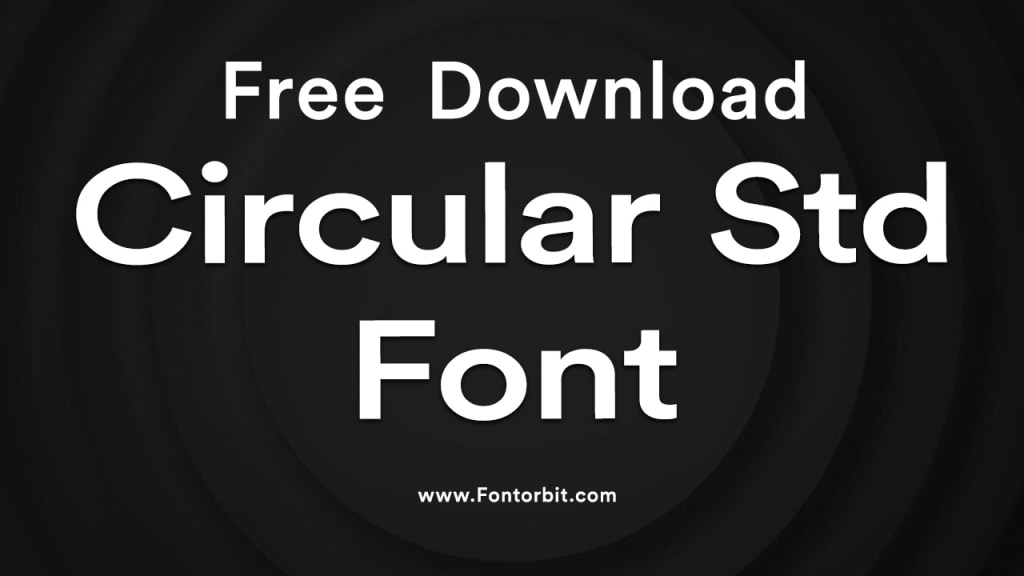
Circular Std Font: A Modern Typeface for Every Design Need
Circular Std
The Circular Std font is a geometric sans-serif typeface that has gained immense popularity in the design world since its release.
Designed by Laurenz Brunner and first published by Lineto in 2013, Circular Std is celebrated for its clean, versatile, and modern aesthetic. Its balanced proportions and subtle details make it a favorite among graphic designers, UI/UX specialists, and branding experts.
Features of Circular Std Font
Geometric Design: Circular Std is based on geometric principles, giving it a uniform and consistent appearance. Its rounded letterforms add a friendly and approachable feel to any design.
Versatile Usage: This font is widely used across various platforms, including websites, mobile applications, corporate branding, and editorial layouts.
Multiple Weights: Circular Std offers multiple weights, ranging from Thin to Black. This flexibility allows designers to use it for both headings and body text.
Language Support: The font supports a wide range of languages, making it ideal for global projects.
Legibility: The clean and simple letterforms ensure excellent legibility, even at smaller sizes, making it suitable for both print and digital mediums.
Why Circular Std is Popular
Circular Std has become a go-to choice for modern brands. Its geometric yet humanistic design bridges the gap between professionalism and warmth. This unique balance is particularly appealing for tech startups, lifestyle brands, and modern editorial designs. Companies like Airbnb have adopted this typeface to convey a sense of trust, simplicity, and modernity.
How to Use Circular Std Font Effectively
For Branding: Use bold weights for logos and headlines to create a strong visual identity.
In Digital Design: Pair it with contrasting fonts to enhance readability and visual interest.
For Editorial Layouts: Use lighter weights for body text and medium weights for subheadings to achieve a harmonious flow.
In Marketing Materials: Its friendly yet professional aesthetic makes it suitable for brochures, posters, and presentations.
Conclusion
Circular Std is a timeless and versatile typeface that seamlessly adapts to various design needs. Its geometric precision combined with a touch of humanistic warmth makes it a valuable asset for any creative project. Whether you are working on branding, digital interfaces, or print materials, Circular Std offers the flexibility and aesthetic appeal to elevate your designs.
FAQs
1. What is the Circular Std font?
Circular Std is a geometric sans-serif typeface designed by Laurenz Brunner in 2013. It is widely used for its clean, modern, and versatile design.
2. Who designed the Circular Std font?
The Circular Std font was designed by Laurenz Brunner and published by Lineto.
3. What makes Circular Std unique?
Its geometric design, combined with humanistic details and excellent legibility, makes it a standout choice for various design applications.
4. Where can I use the Circular Std font?
Circular Std is suitable for branding, digital interfaces, editorial layouts, marketing materials, and more.
6. Does Circular Std support multiple languages?
Yes, Circular Std offers extensive language support, making it ideal for international projects.
7. What are some good alternatives to Circular Std?
Fonts like Gotham, Avenir, and Proxima Nova are excellent alternatives to Circular Std, offering similar geometric sans-serif aesthetics.